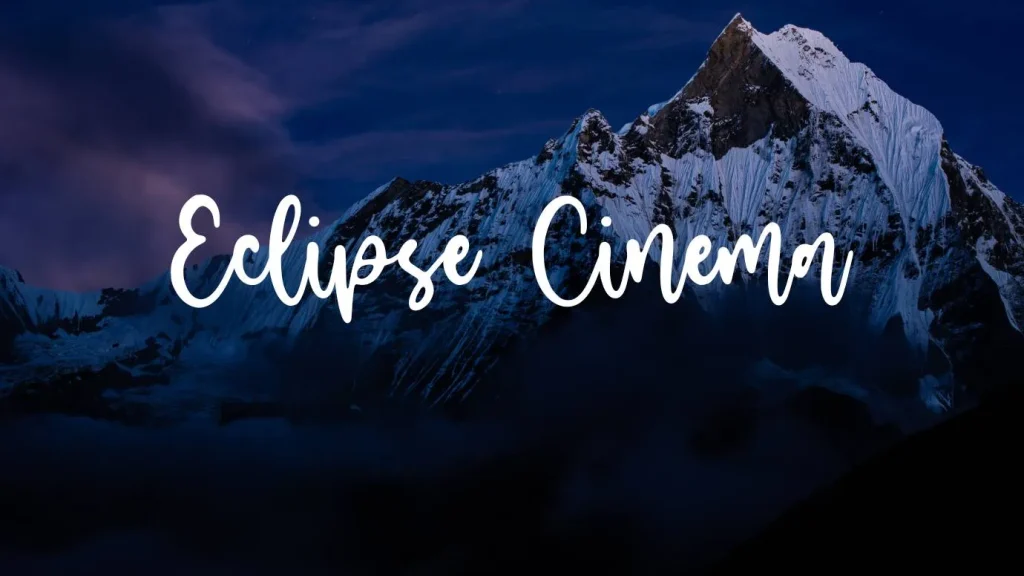
Eclipse Cinema Font character was carefully developed and executed with fantastic clarity. The free version is also provided here. The figures were constructed using simple pattern formations. As a result, the modern typeface is easy to read.
We choose 26 letters from the letter set in upper and lower case, 31 rare characters with focus, and a numbering system from 1 to 10 for this zone. It can be perfect for make a well-known pair with chasy font.
StyleScript
Many organizations use this typeface for their web pages and software design projects. It works well with numerous design programs, including Canva, and Adobe as well.
The typeface is appropriate for logos, posters, mugs, postcards, and more. With its natural appearance, you’ll obtain a vintage look. It is ideal for a variety of styles due to its fashionable letters. This typeface is excellent for logo use in addition to being ideal for food design and naming.
The lettering style is used in the development of websites and is particularly well-liked by designers. The typeface may also be used in pairing with various other types to create great design ideas.
What type of font is Eclipse Cinema?
Eclipse Cinema is a script typeface that has basic shapes and equal strokes for a refined, noticeable appearance.
Where can I use the Eclipse Cinema font?
This is a classy typeface that is appropriate for logos, posters, mugs, postcards, and more.
Who created Eclipse Cinema typeface?